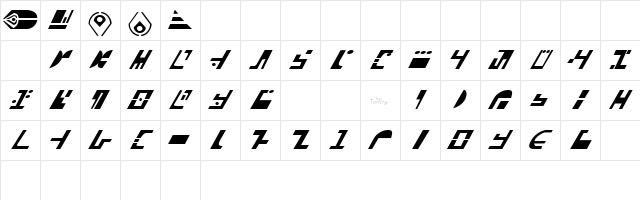
Design Context for Ferengi-T Miller
Ferengi-T Miller is a composed and adaptable typeface that performs quietly and consistently across a wide range of design contexts.
Pro Tip: Use Ferengi-T Miller in both headline and body roles to test its range before committing to a single application.